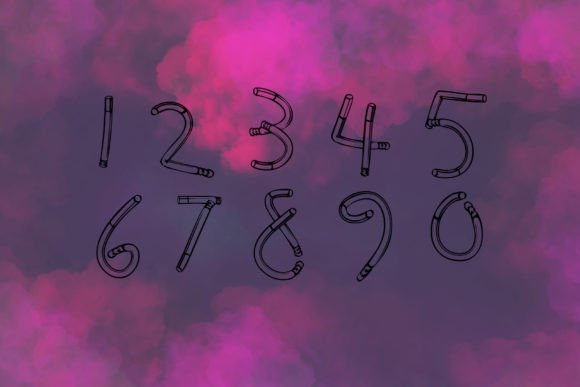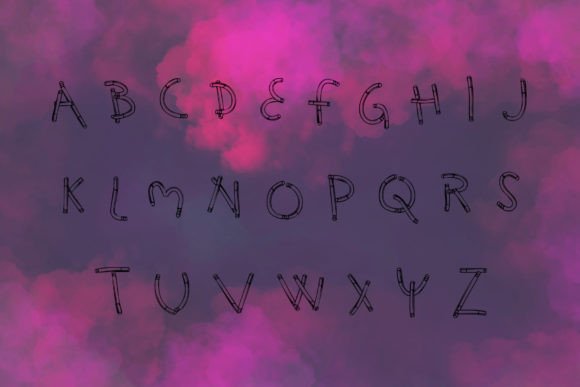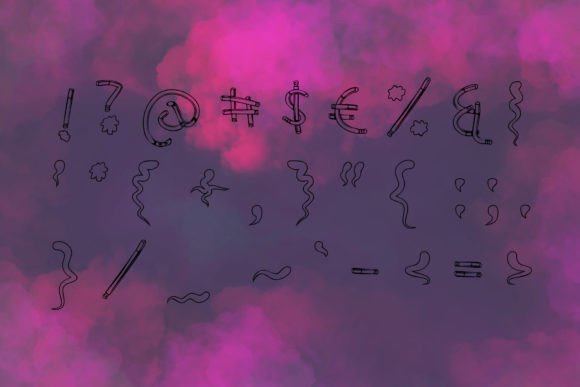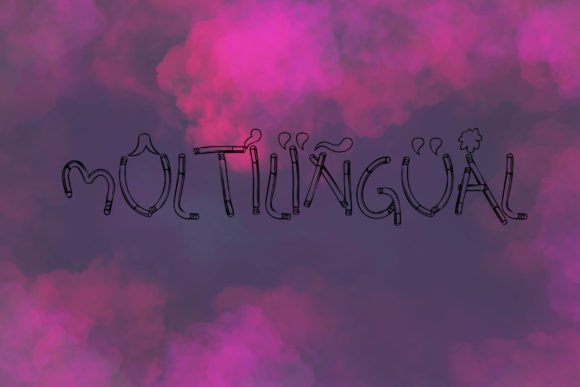
Introduction to Secondhand Smoke Font
Have you ever been stuck on a design project, staring at a blank canvas, searching for that perfect spark to ignite your creativity? For me, it was the smell of freshly lit cigarettes wafting through the air that sparked an idea. I was working on a campaign to help smokers quit, and I needed a font that would convey the harsh realities of secondhand smoke without being too on the nose. That’s when I stumbled upon the Secondhand Smoke Font – a fun, smoky, nicotine-infused display font that would make my design pop.
This font is more than just a design resource; it’s a valuable tool for designers looking to create high-quality, impactful designs for their creative projects. With its transparent background and unique, smoky aesthetic, the Secondhand Smoke Font is perfect for designers looking to add a touch of edginess to their work. And the best part? It’s available for free download, making it an accessible design resource for designers of all levels.
Key Features of Secondhand Smoke Font
- Includes multiple font styles, including bold and regular weights, to cater to diverse design needs.
Honest Review: Secondhand Smoke Font
I recently came across the Secondhand Smoke Font, and I’m excited to share my thoughts on this design resource. As a designer, I’m always on the lookout for high-quality fonts that can elevate my creative projects.
One of the standout features of the Secondhand Smoke Font is its unique, distressed look. It’s perfect for projects that need a bit of grit and edge. ✨ I love how the font’s imperfections give it a handmade feel that’s hard to replicate with more polished fonts.
Here are some of the things that work well with the Secondhand Smoke Font:
- High-quality design: The font is well-crafted and looks great on a transparent background.
- Great for creative projects: Whether it’s a music project, a fashion brand, or a streetwear label, the Secondhand Smoke Font is a great choice.
However, there are a few limitations to consider: ⚠️ The font may not be suitable for projects that require a more professional or corporate look. Additionally, the font’s distressed look may not be ideal for small text sizes.
Overall, I’m impressed with the Secondhand Smoke Font. It’s a great addition to any designer’s toolkit, and I’d definitely recommend it for creative projects that need a bit of attitude and edge.
Secondhand Smoke Font is a unique and stylish font perfect for creative projects. With its high-quality design, this font is a great addition to any design resource collection.
Tips for Getting the Most Out of Secondhand Smoke Font
For the best results, use Secondhand Smoke Font with a transparent background to create a seamless design. Experiment with different font sizes and colors to achieve the desired effect.
Secondhand Smoke Font is perfect for creative projects, such as:
Wedding invitations
Business cards
Blog posts